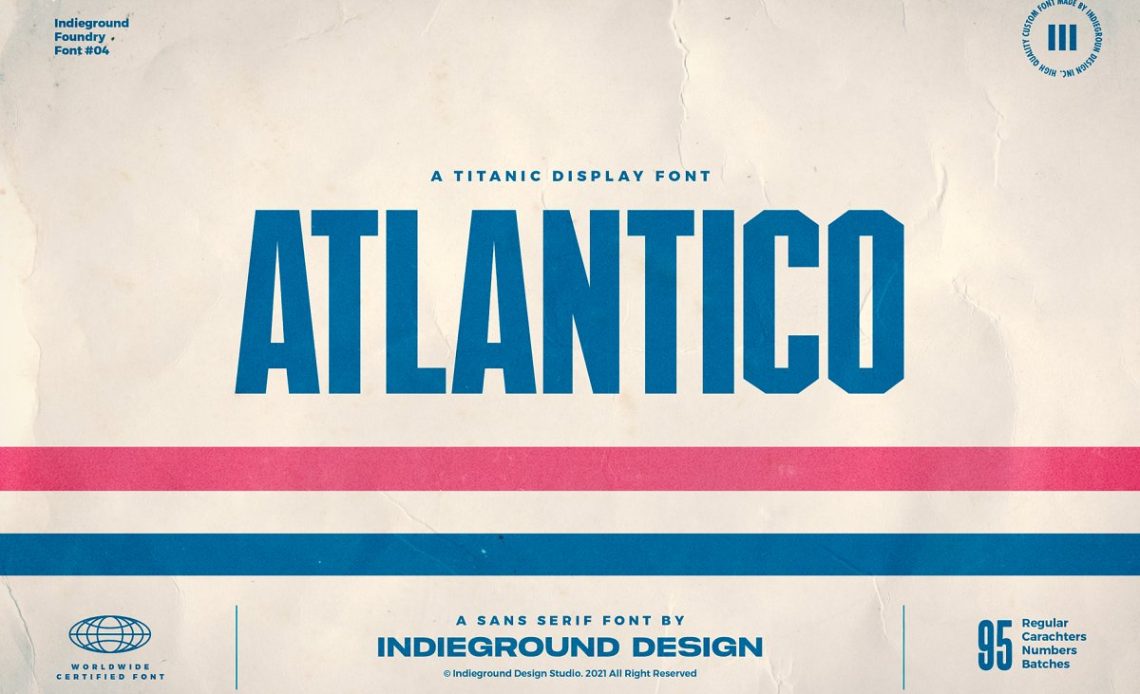
Looking for the perfect font to take your designs to the next level? Look no further than Atlantico Font, the best font for movie credits! Created by Indieground Design, this sans-serif font family is a must-have for anyone looking to add an iconic style to their typography.
Perfect for heavy titles, Atlantico Font is both retro and modern, making it a versatile choice for a variety of projects. With its full character set, this font is sure to make your artwork stand out from the crowd.
But don't just take our word for it. Let the emotional impact of Atlantico Font speak for itself. Imagine the feeling of seeing your movie credits or book titles in this powerful font, instantly elevating your project to a whole new level. Or consider the impact it will have on your branding, giving your logo and marketing materials a professional and eye-catching look.
In short, if you're looking for the perfect font to add some style and impact to your design work, look no further than Atlantico Font by Indieground. Download it today and let your creativity soar!